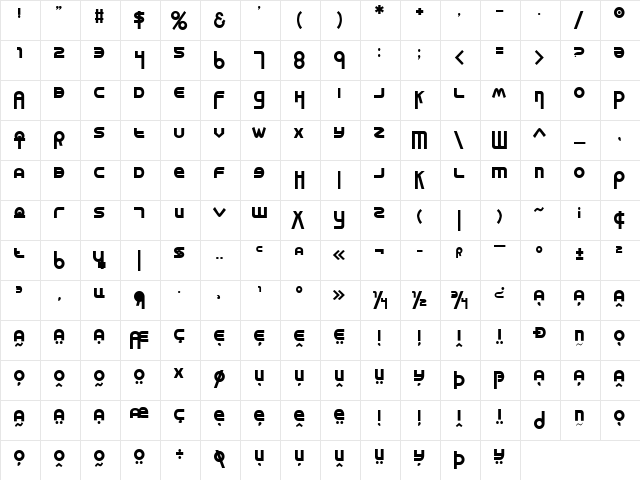
Milk Bar Bold Bold
| Designer | Dan Zadorozny |
Design Context for Milk Bar Bold Typeface
Milk Bar Bold takes a measured approach to typography — its balanced proportions and neutral character make it a reliable workhorse for both digital and print work. Its bold stroke weight gives it real presence on the page.